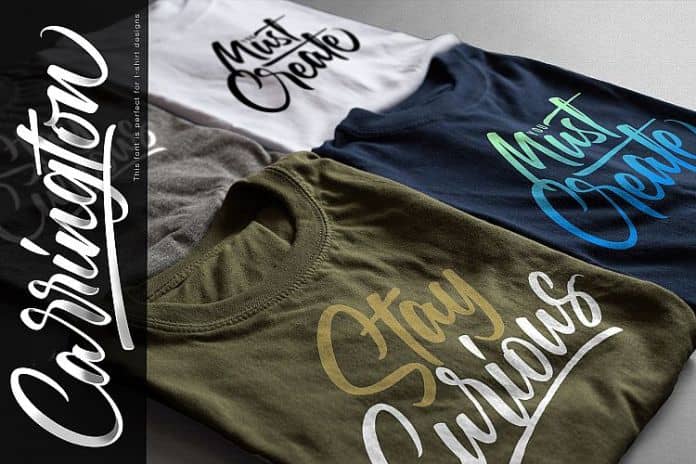
Carrington Script Font
Carrington Font is a new typeface. Carrington Script Font is a brush script font that has a lively and dynamic design. Nug’s Project created and published the Font. The font was uploaded on April 17, 2019. It’s ideal for instances when a straightforward and informal font style is desired. It appears to be part of the Lovetime Script Font family, and it comes in both Typical and Bold versions. The font is a Unicode typeface family that includes languages that use the Latin script and its variants and the ability to accommodate new scripts. The font is part of the Script and Brush font family. A big number of designers is now using this fantastic typeface.
This Script and Brush font is ideal for circumstances where a lovely and informal lettering style is required. As a result, it works well in a wide range of creative situations. This typeface is available for personal use at no cost. Because this Font is PUA encoded, you can instantly access all of the amazing glyphs! It also has ligatures and alternative symbols, among other things. Every area of your design will benefit from the natural feel of this handwritten typeface. Windows, Apple/Mac, Linux, Cricut, Silhouette, and other cutting machines are all compatible with the font. OTF and TTF are the two formats in which the typeface is offered.
It can be used for a variety of things, including titles, signatures, logotypes, t-shirt designs, letterheads, signage, labels, newsletters, posters, badges, and any other design that requires a distinctive, eye-catching typeface. Any color can be used with this Script and Handwritten Font. Any endeavor, personal or professional, looks fantastic with this Font. Citations in any book will appear fantastic with this typeface.